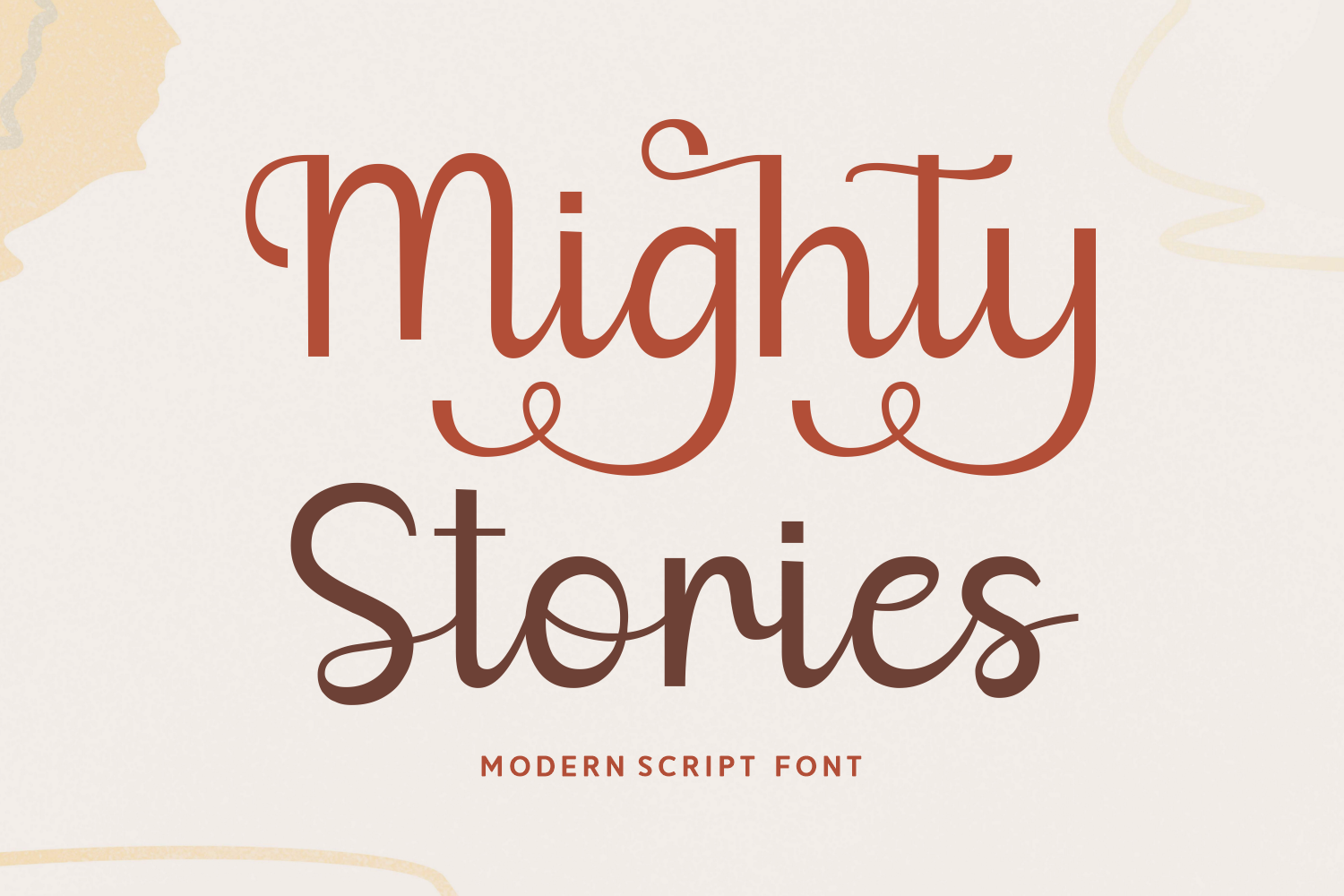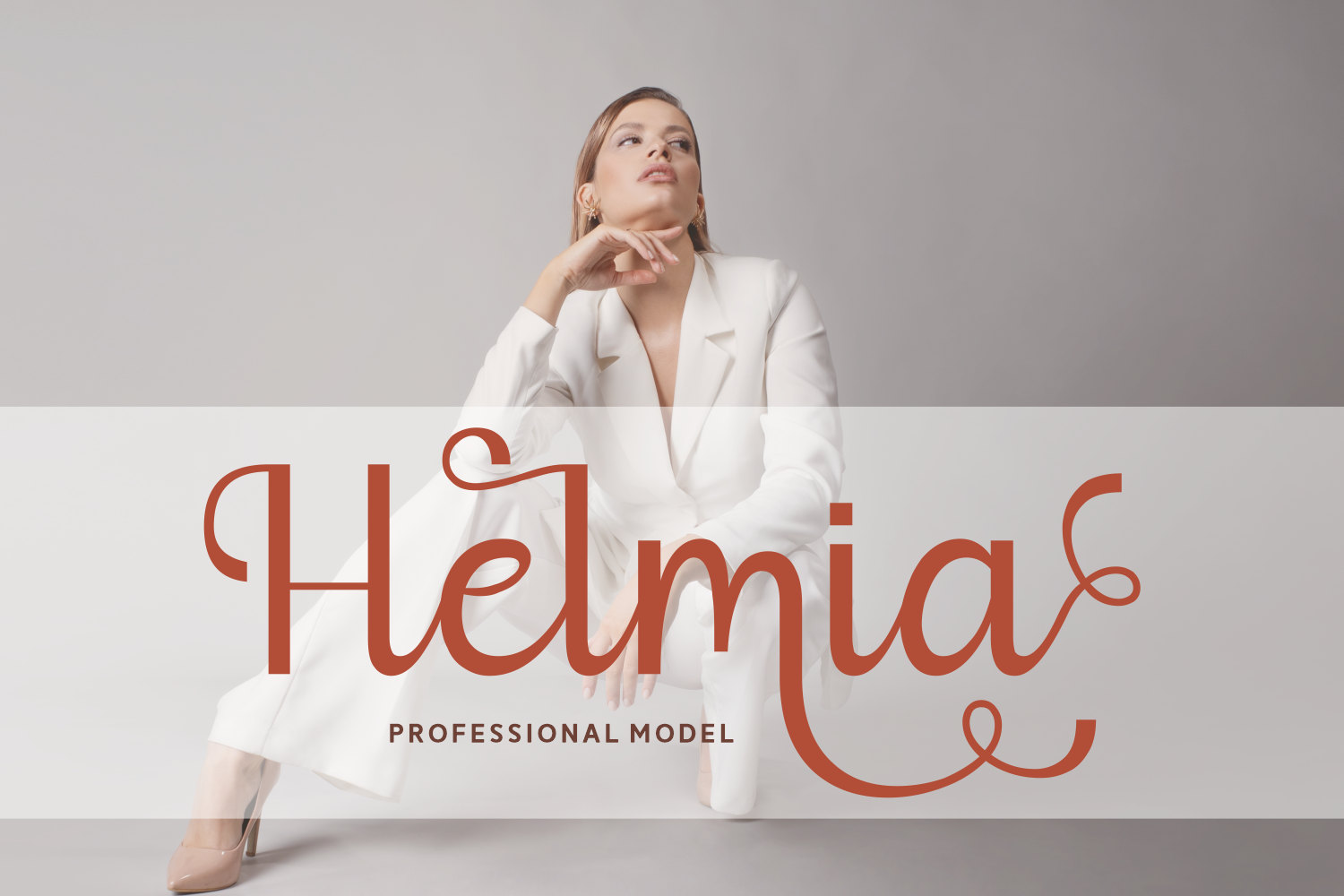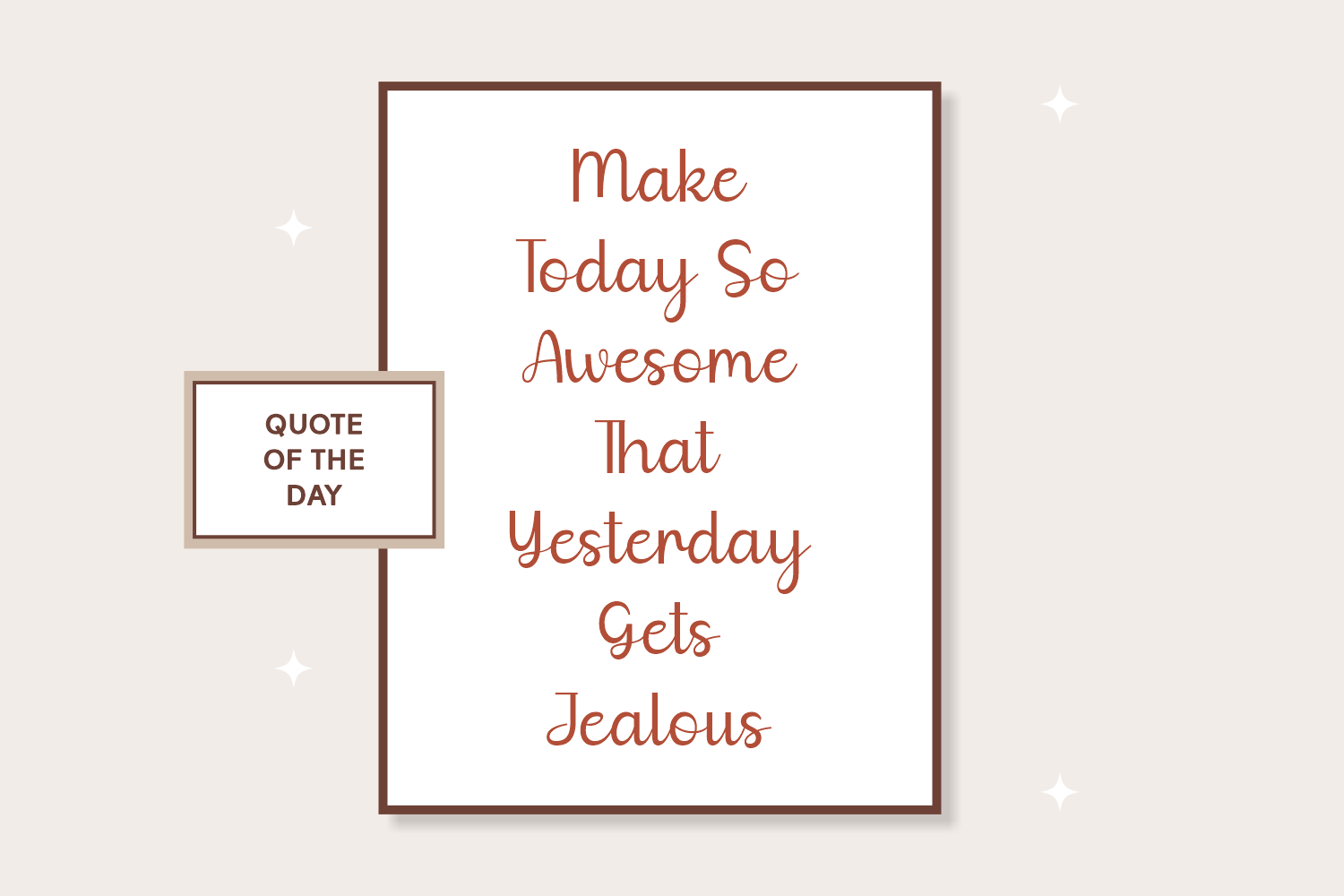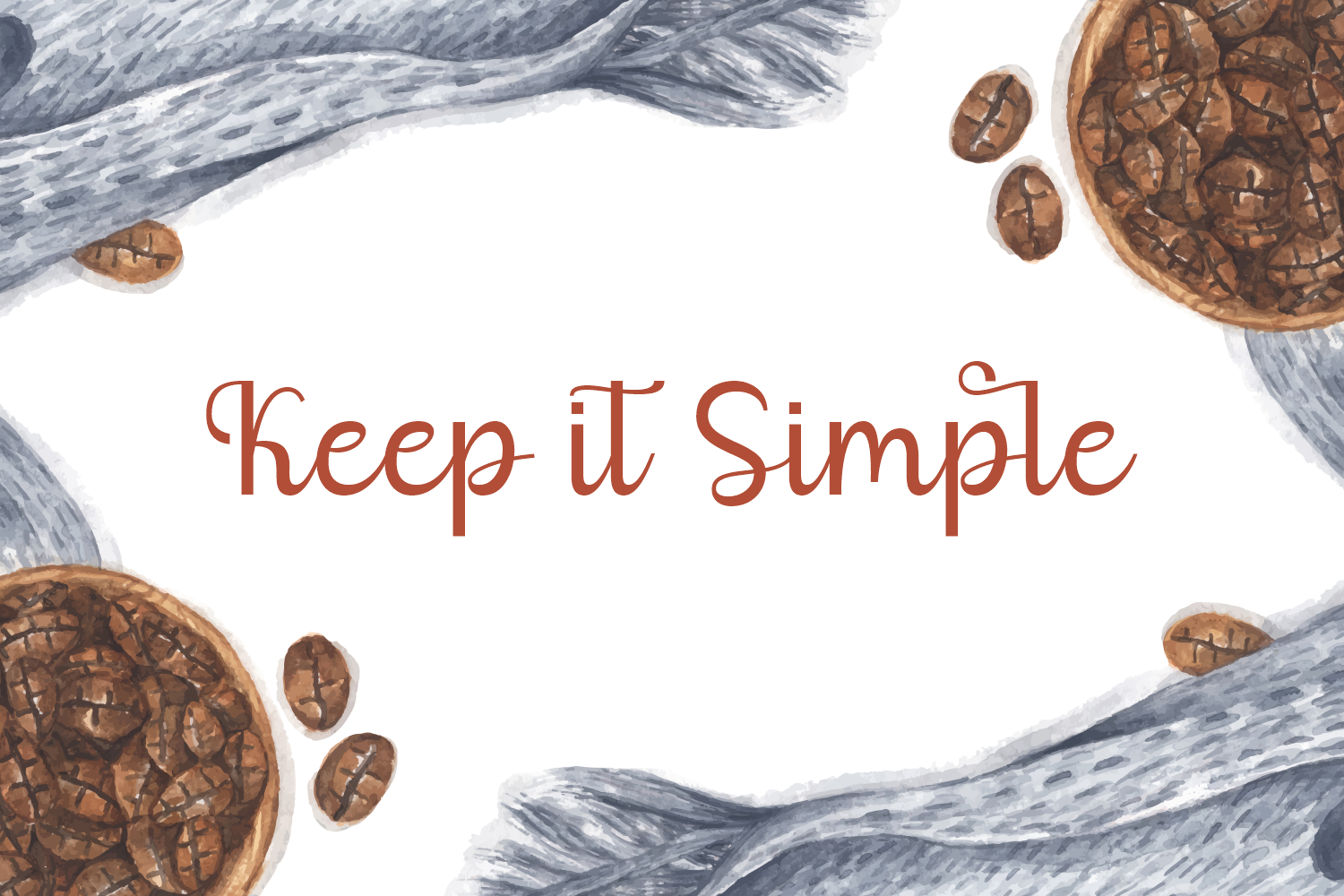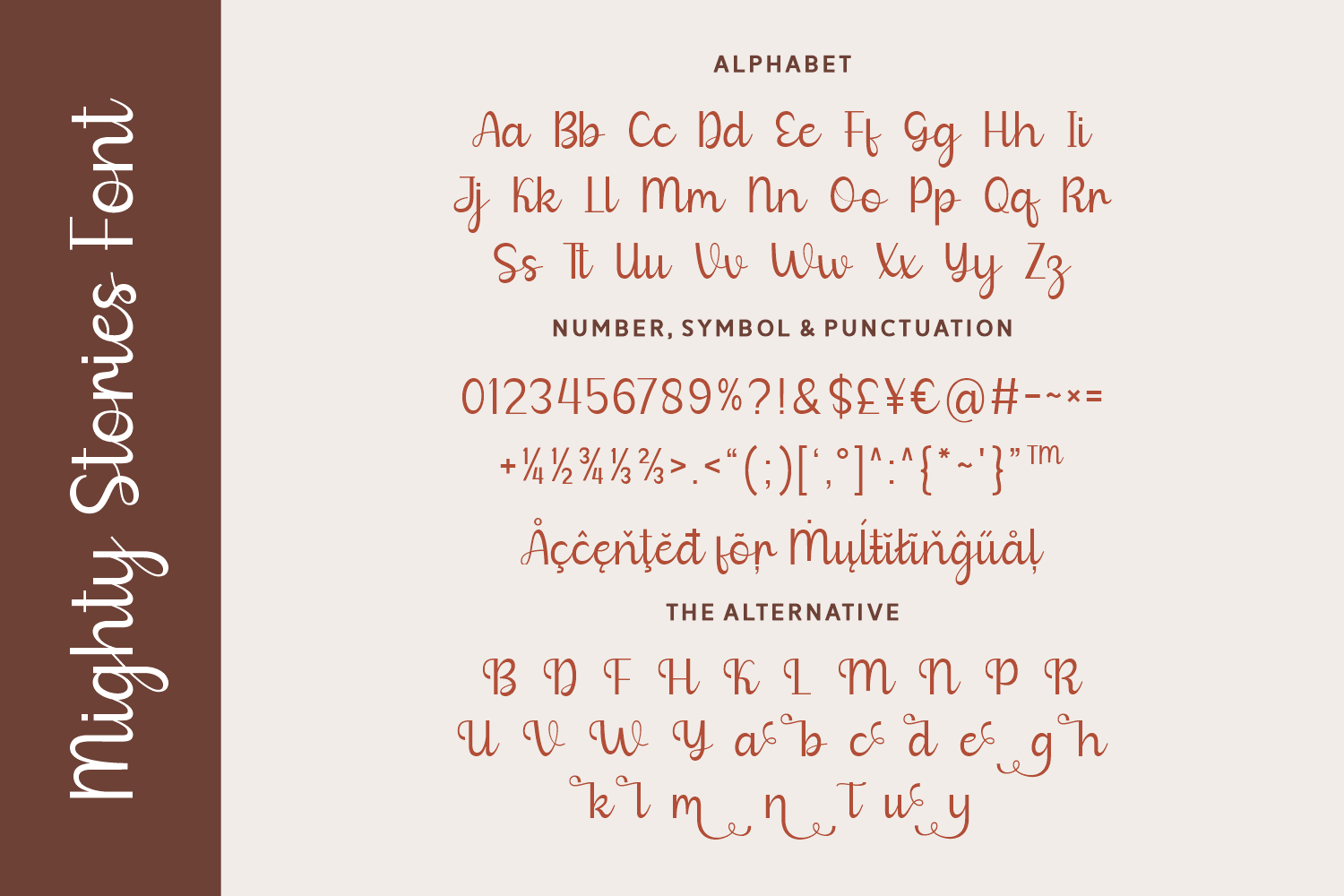
Mighty Stories
Mighty Stories is a charming modern script font that blends whimsy with clarity, offering a delightful touch to both playful and professional designs.